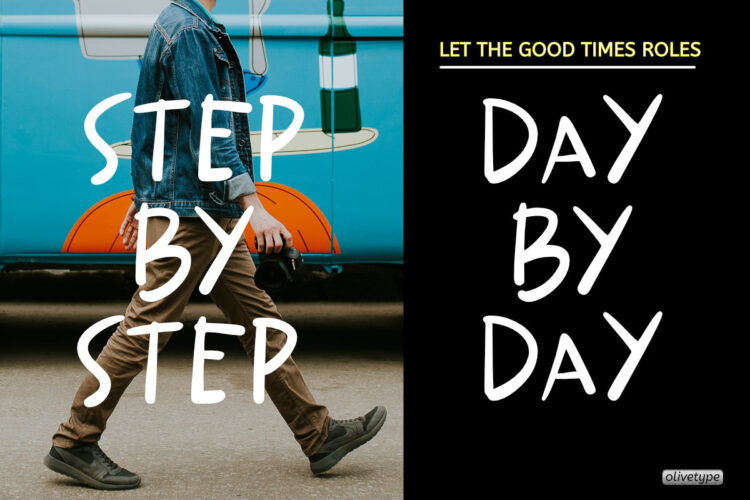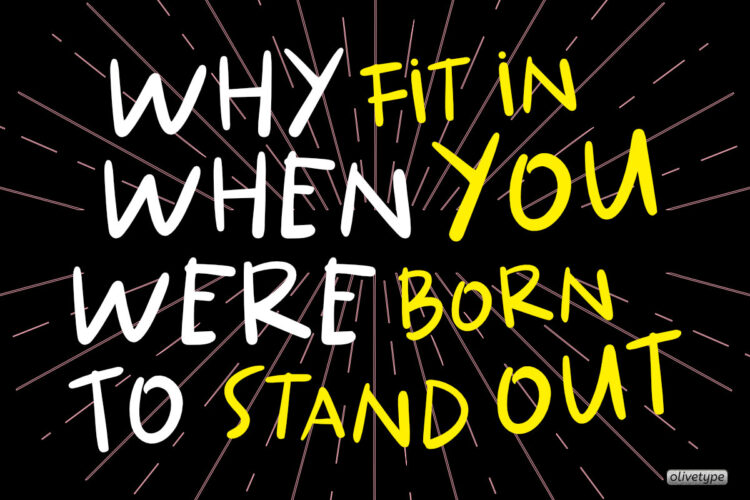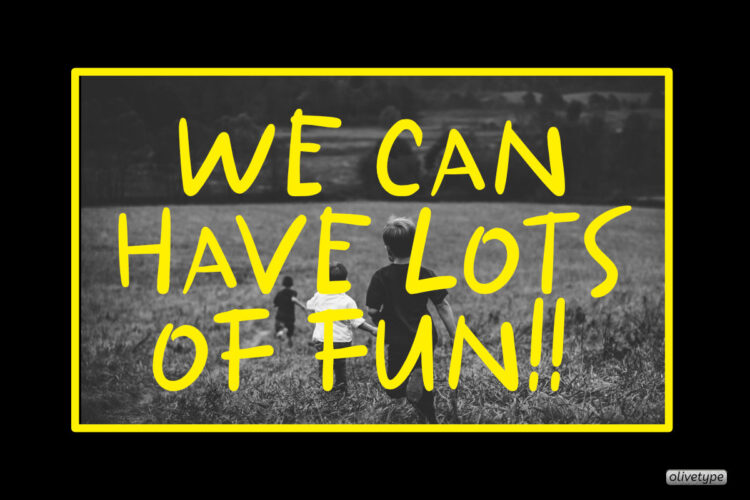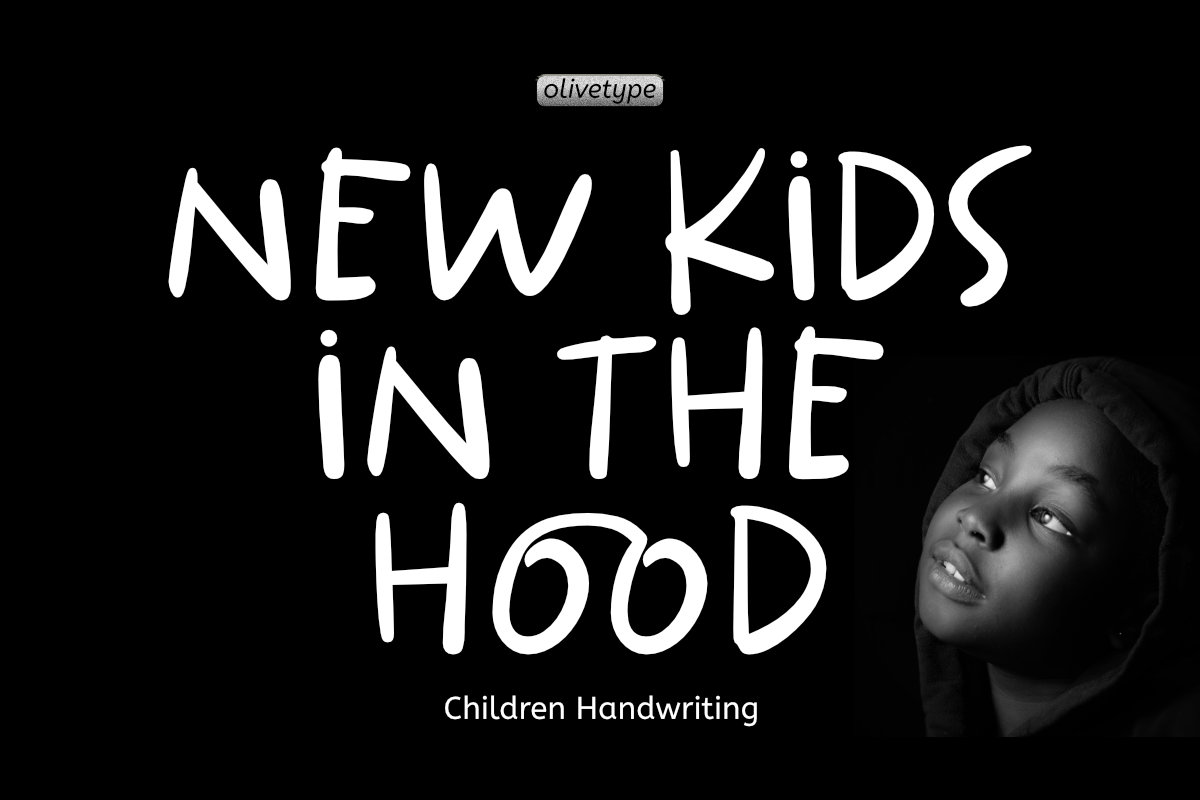
New Kids In The Hood is a playful, fun handwritten font. Clean and a little bit quirky. This font is perfect for all of your logos, branding, social media, and crafty DIY projects
- Basic Latin A-Z & a-z